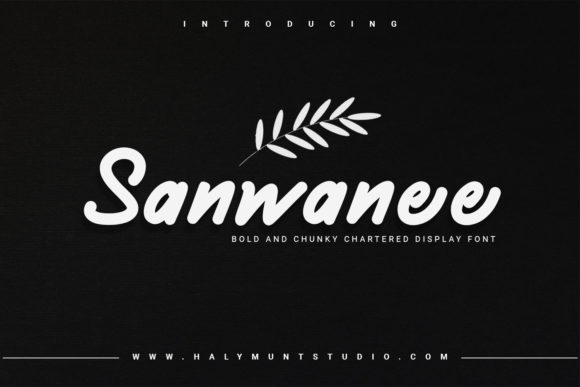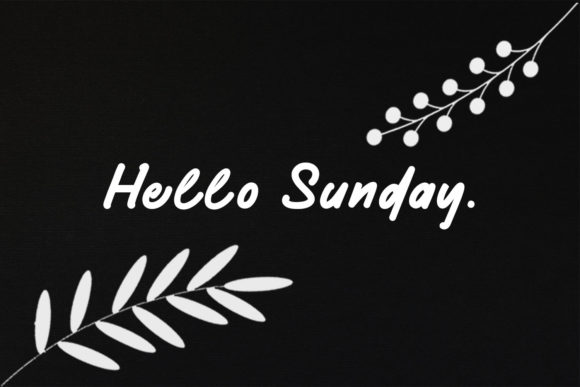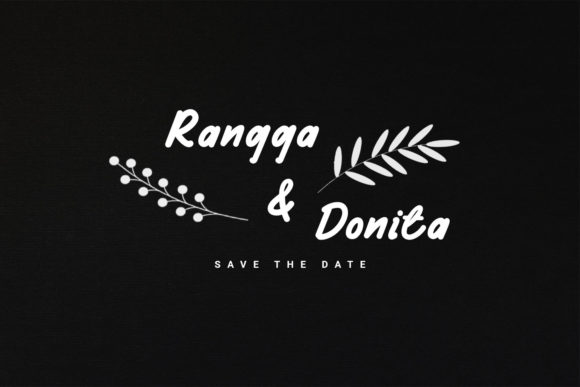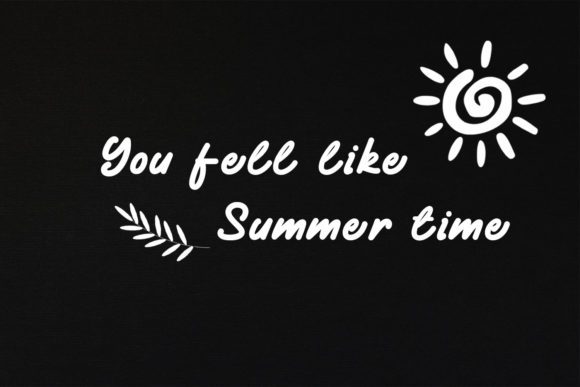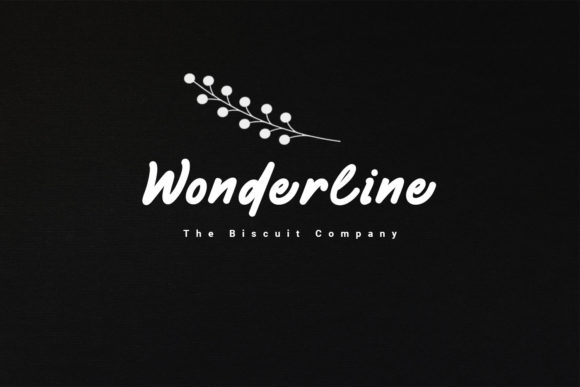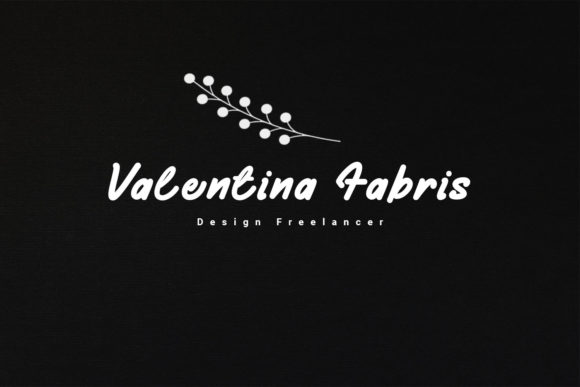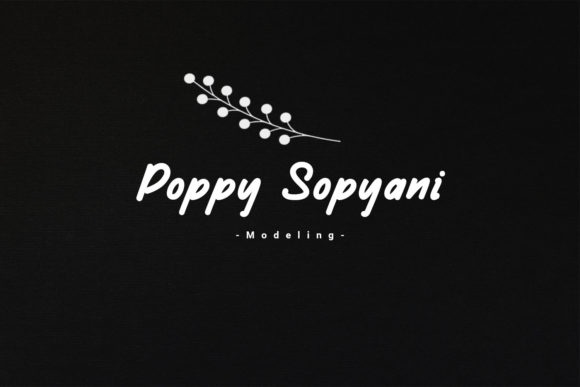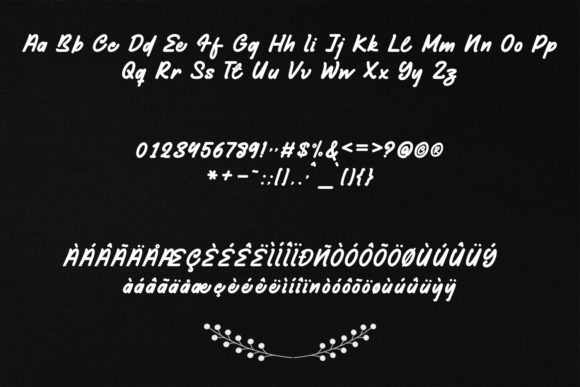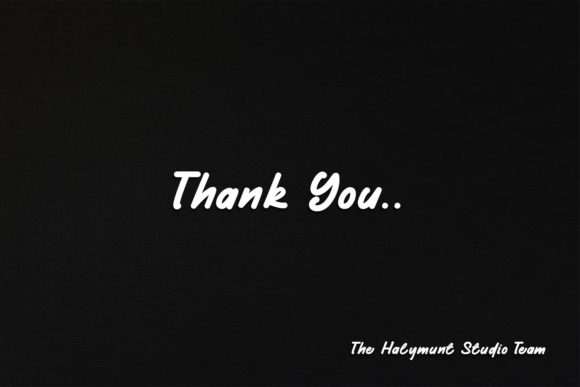
Sanwanee Font
About Sanwanee Font
Sanwanee is a sweet and flowing handwritten font. Fall in love with its authentic feel and use it to create gorgeous wedding invitations, beautiful stationary art, eye-catching social media posts, and cute greeting cards.